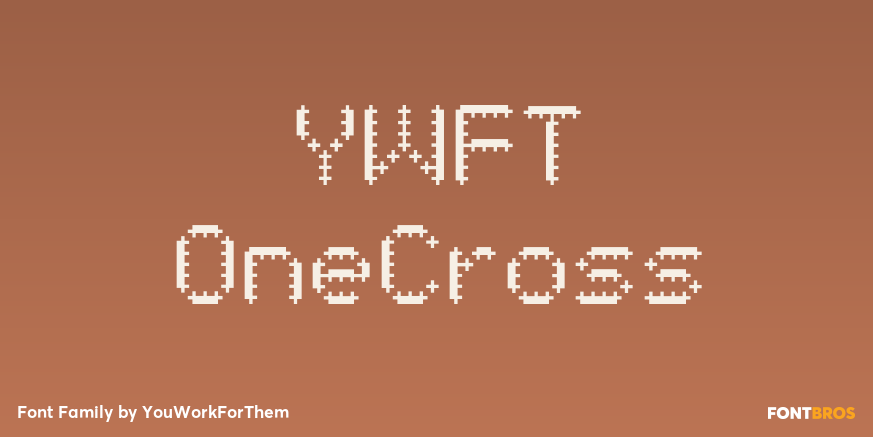
YWFT OneCross
Font Family by YouWorkForThem
YWFT OneCross came from the original structure of YWFT OverCross (2002) and was then reworked with an approach to create an interesting blend of both positive and negative space. YWFT OneCross has been used by numerous magazines and websites since 2002. YWFT OneCross was designed in 2002 and converted to opentype in 2010.